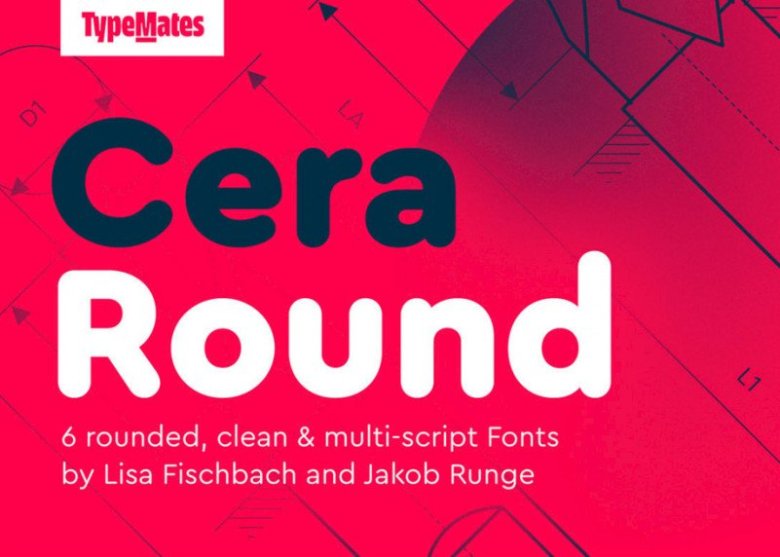
Cera Round Pro Font Family
This is a modern sans serif font family. Suitable for all any creative project. Will make each project easier and more playful. Introducing Cera Round Pro Sans Serif Family! It’s was designed by Jakob Runge, Lisa Fischbach and published by TypeMates.
It’s contains 6 styles and family package options. As powerful as any other member of the collection, It’s combines warmth with elegance and its support for Cyrillic and Greek makes it a reliable and engaging companion for international communication.
Drawing on a tradition of machine-milled lettering and combining it with the technical geometry of Cera, It’s features circular stroke endings and softly rounded corners to create cheerful feeling text. Amongst its smooth, yet precise letterforms, the circular o takes on a new, striking quality.
While the regular has been carefully proofed for long editorial texts, Cera Round Pro’s six weights, thin to black, allow for a whole range of expression in display typography.
Where the light weights have all the cleanliness and precision of technical drawings, its heavy weights are playful and soft:perfect for strong headlines and packaging projects.